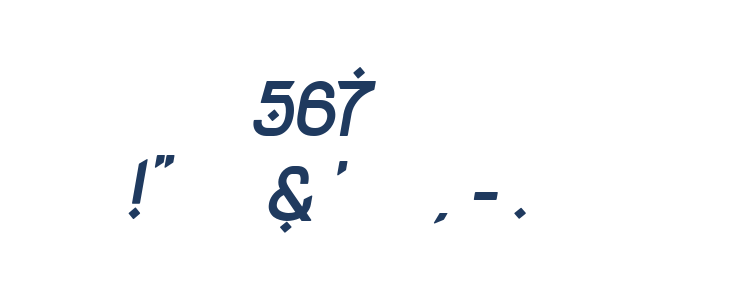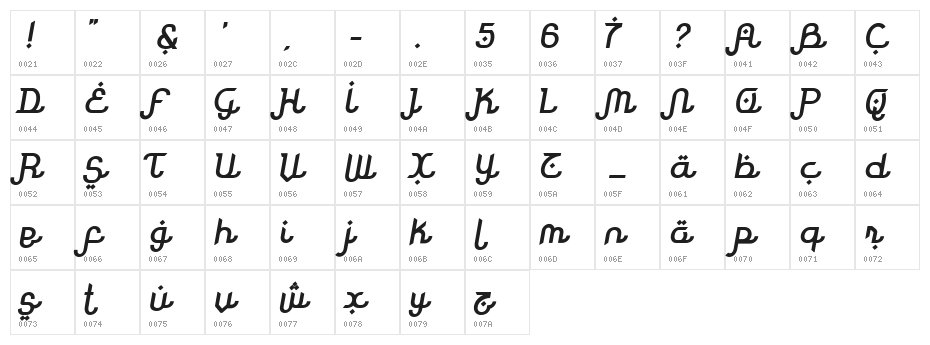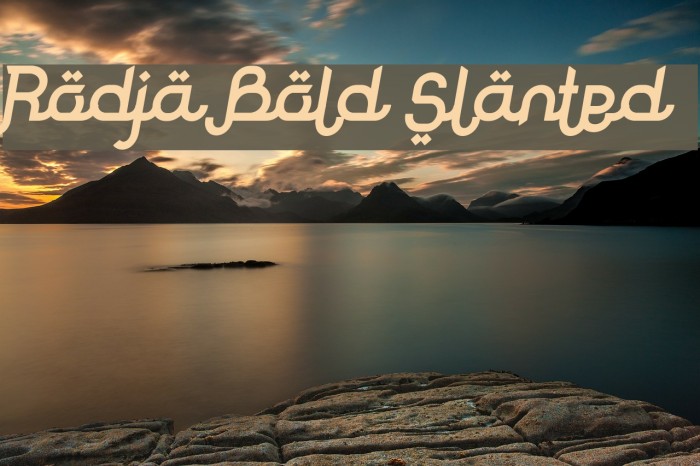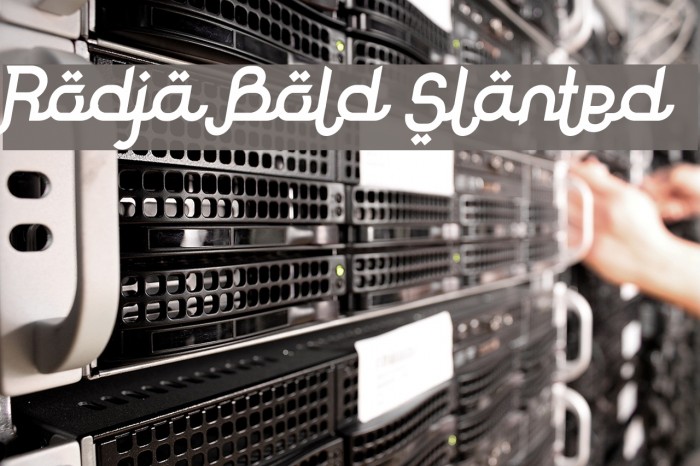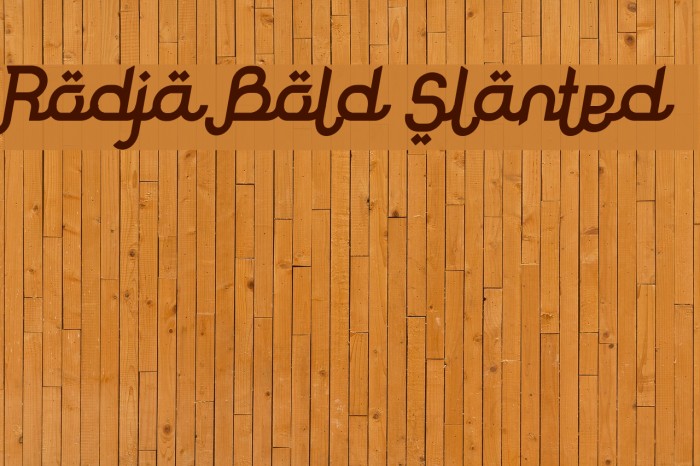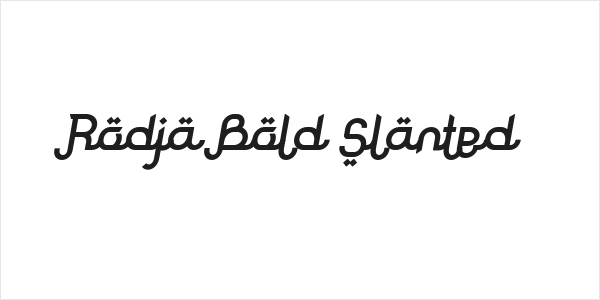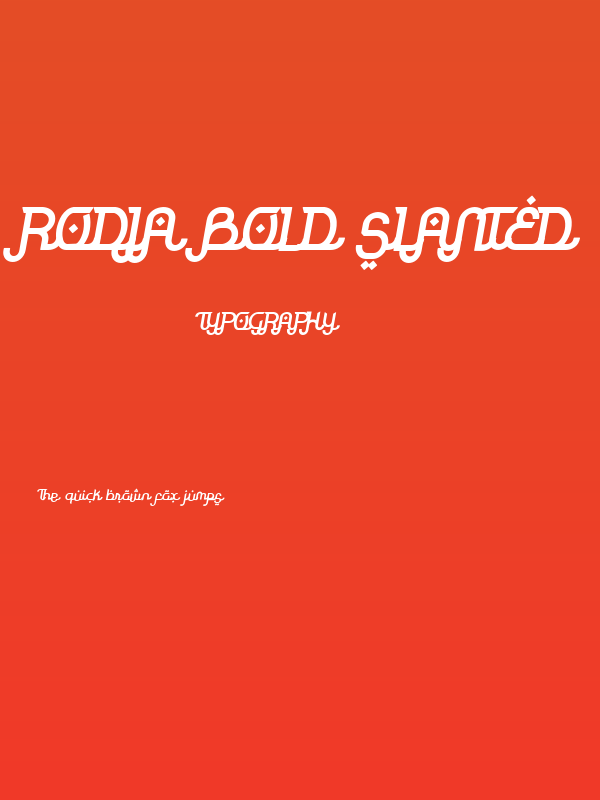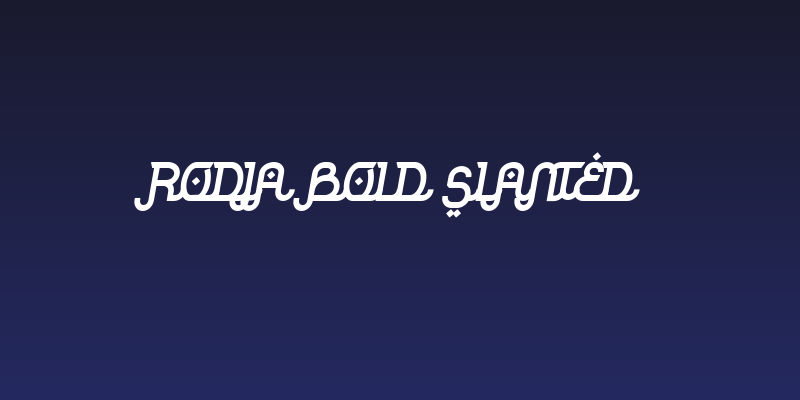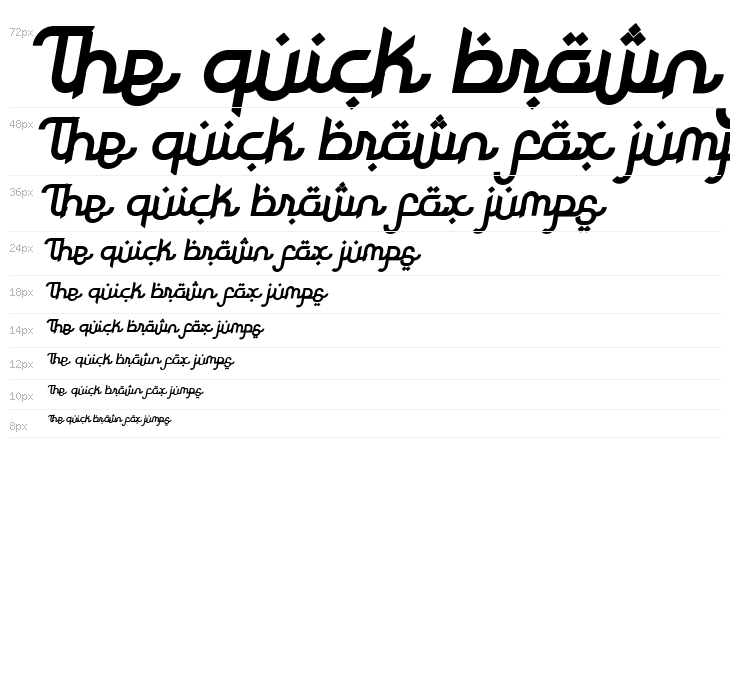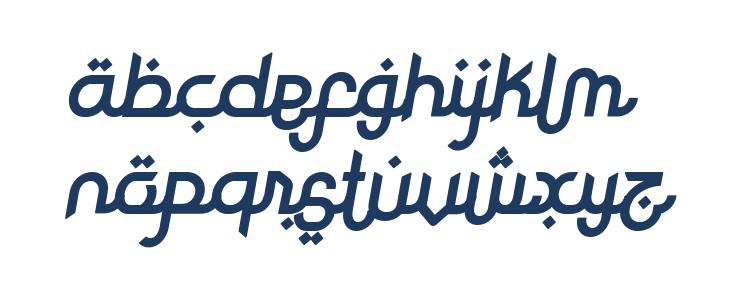
Rodja Bold Slanted Font
Rodja Bold Slanted Description
This font features a bold and slanted style with a unique, flowing script that combines elements of both cursive and modern design. The characters are interconnected, creating a seamless and dynamic appearance. The uppercase letters are particularly striking, with distinctive loops and curves that add a sense of movement and energy. The lowercase letters maintain this fluidity, ensuring consistency across the typeface. Numbers and special characters are designed to match the overall aesthetic, with a bold presence and a slight slant that complements the letters. This font is well-suited for projects that require a bold, eye-catching typeface with a modern twist.